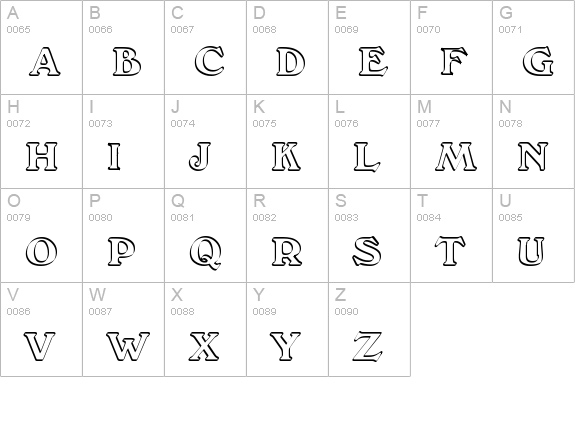
Callistroke Font Details
Introducing Callistroke font, a modern and elegant typeface that exudes sophistication and creativity. This versatile font features clean lines and a stylish aesthetic, making it perfect for a wide range of design projects. Whether you're working on branding, packaging, advertising, or any other creative endeavor, Callistroke font is sure to make a lasting impression. What sets Callistroke font apart is its unique blend of classic elegance and contemporary flair. The sleek letterforms and subtle curves give this font a timeless appeal, while the modern touch adds a fresh and dynamic vibe. Whether used for headlines, body text, or graphic elements, Callistroke font will elevate your design and bring it to the next level. The best part? Callistroke font is available for free download at FontsMarket.com. This means you can easily access this stunning typeface and use it in your projects without any cost. Don't miss out on this amazing opportunity to enhance your designs with the beauty and sophistication of Callistroke font. Download it today and let your creativity shine!